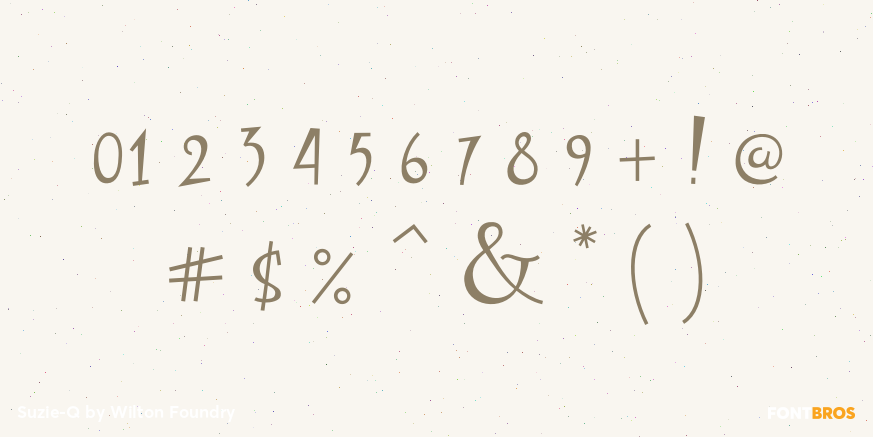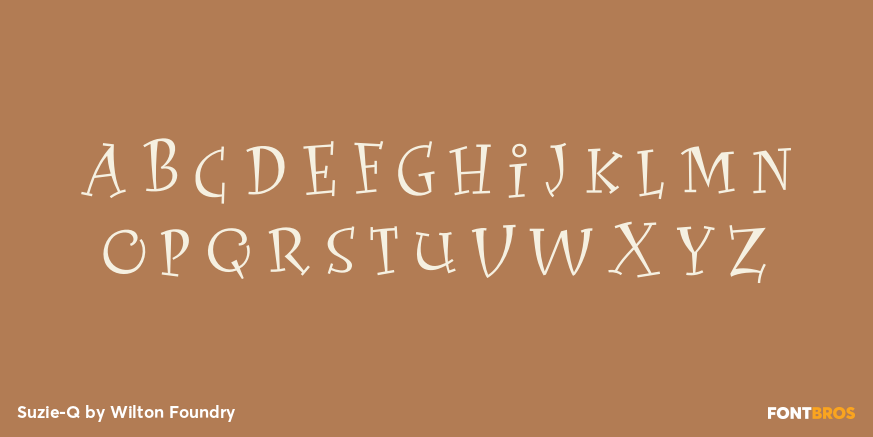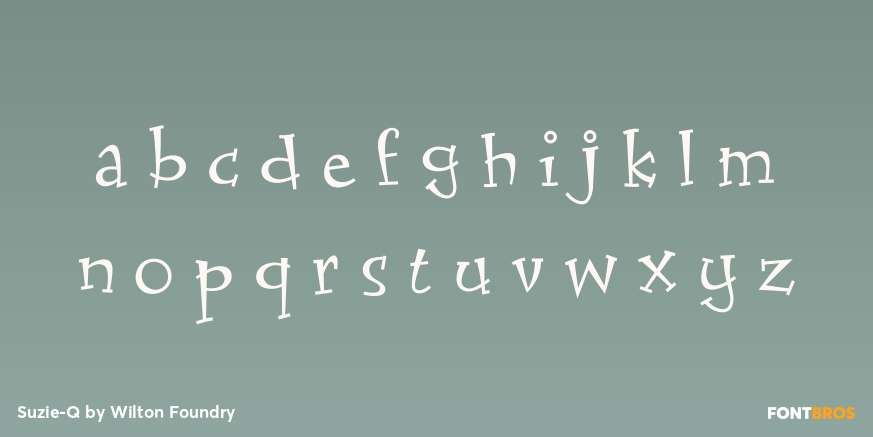
Suzie-Q
Font Family by Wilton Foundry
The "Suzie-Q" dance became popular in 1937. It is basically a step done along with or within another dance form. Can be done as a solo, couple or group. Then, in the 60s and 70s "Suzie-Q", the song, became popular with Creedance Clearwater Revival and the Rolling Stones. In 2007 Suzie-Q, the font, was born - Suzie-Q can be used on its own or works well with Suzie-Skew and Suzie-Two. Oh, Suzie-Q, baby I love you!